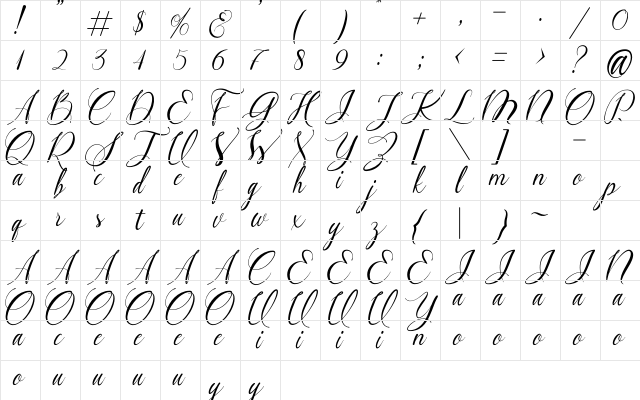
Sweety Girl Regular
Designer: Agus Abdurrokhim
Design Context for Sweety Girl
Sweety Girl is a composed and adaptable typeface that performs quietly and consistently across a wide range of design contexts.